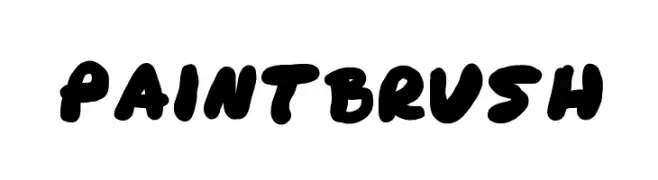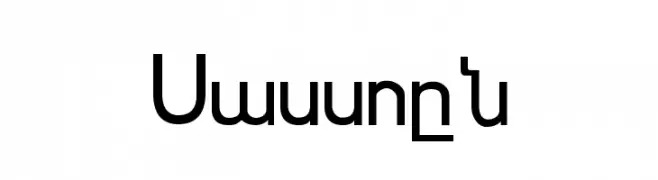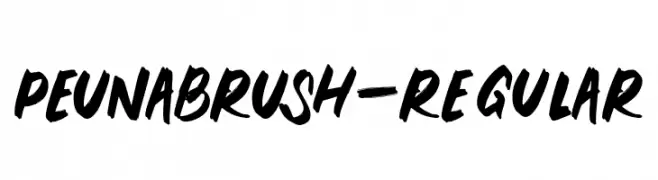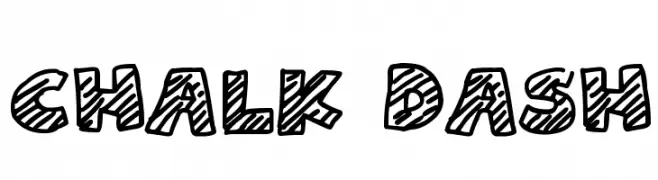
A bold, brush-style font with a playful, hand-painted appearance.
A bold, textured font with a natural, overgrown foliage effect.
A bold, rustic font with a hand-crafted, Western-inspired style.
A modern sans-serif font with rounded edges and uniform stroke width.
A modern, geometric sans-serif font with clean lines and uniform strokes.
A bold, expressive brush-style font with dynamic, hand-painted strokes.
A bold, playful font with a chalkboard style and dashed pattern.